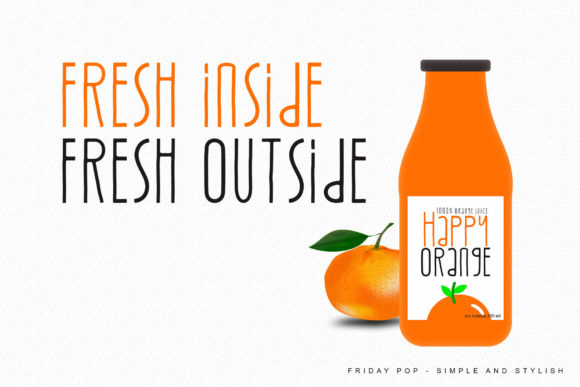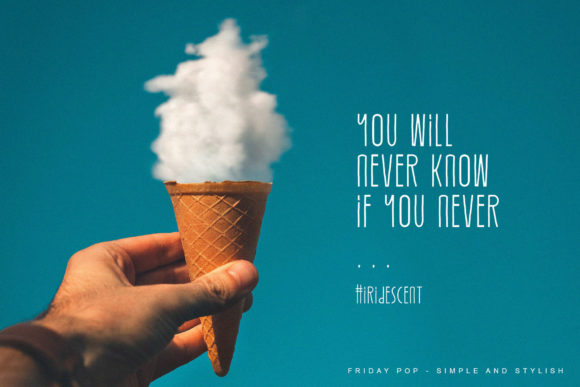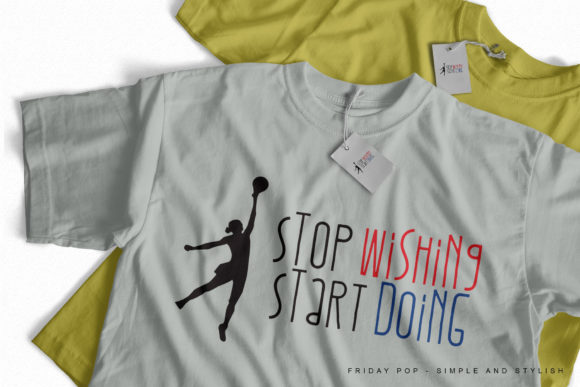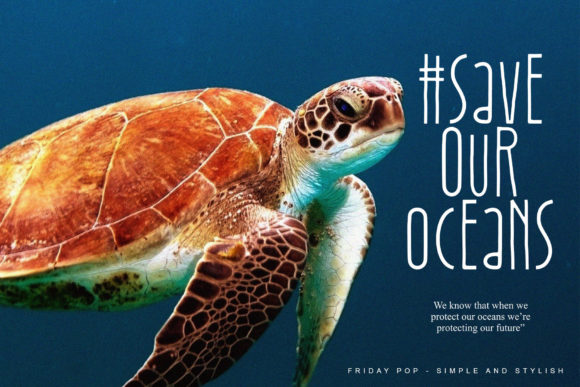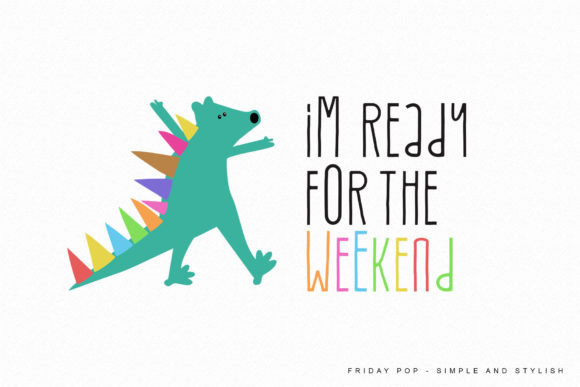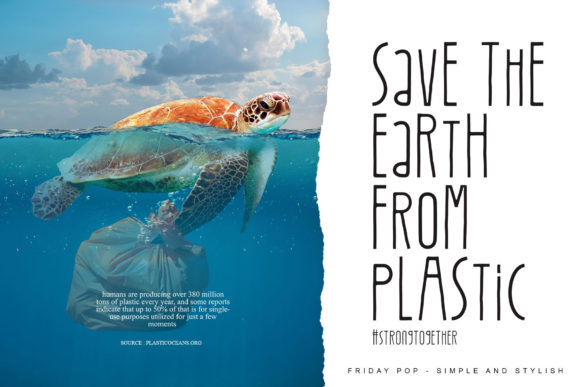
Introduction to Friday Pop Font
Have you ever been working on a creative project, pouring your heart and soul into every detail, only to feel like something’s missing? You’ve got the perfect concept, the ideal color palette, but the text just doesn’t seem to pop? That’s where the Friday Pop Font comes in – a free design resource that’s sure to elevate your high-quality project and make it stand out from the crowd.
As a designer, you know the importance of choosing the right font for your project. It’s not just about aesthetics; it’s about conveying your message and evoking the right emotions in your audience. The Friday Pop Font is a beautiful, thin lettered sans serif font that’s perfect for a wide range of creative projects, from branding and marketing materials to digital designs and more.
With its transparent background and simple design, the Friday Pop Font is a versatile and easy-to-use tool that’s sure to become a go-to resource for your design needs.
Key Features of Friday Pop Font
- High-quality font design perfect for creative projects, including advertisements, posters, and social media graphics.
- Transparent background, allowing for easy customization and layering.
- Includes a wide range of glyphs and characters, including Latin and Cyrillic scripts.
- Designed to be highly legible and visually appealing, making it perfect for use in digital and print media.
- Available in a single weight, but highly versatile and suitable for use in a variety of contexts.
Honest Review: Friday Pop Font
As a designer, I’m always on the lookout for high-quality design resources to elevate my creative projects. Recently, I stumbled upon the Friday Pop Font, and I must say it’s been a great addition to my toolkit. This font is perfect for anyone looking to add a playful and modern touch to their designs.
- ✨ Unique and modern design aesthetic that’s perfect for creative projects.
- ✨ Offers a transparent background, making it easy to use in various design scenarios.
- ⚠️ Limited character set, which may be a drawback for designers who need a wide range of characters.
- ⚠️ Not ideal for formal or professional projects, as it may come across as too casual.
Overall, I’m really impressed with the Friday Pop Font. It’s a great addition to any designer’s toolkit, and its modern design aesthetic makes it perfect for creative projects. While it may have some limitations, I believe it’s well worth the download, especially considering it’s free.
Friday Pop Font
The Friday Pop Font is a high-quality, free download design resource ideal for creative projects that require a modern and catchy feel. This font features a transparent background, making it easy to incorporate into various design elements.
Tips for Getting the Most Out of Friday Pop Font
To get the most out of the Friday Pop Font, try combining it with other design elements, such as icons and graphics, to create a visually appealing design. Experiment with different font sizes and colors to add depth and interest to your design.
The Friday Pop Font is ideal for a variety of creative projects, including social media graphics, blog posts, and advertising materials. It’s also a great choice for designing invitations, flyers, and other promotional materials.
Alternatives to Friday Pop Font
Comic Sans MS is a classic font that has been a staple in design for years. It’s perfect for creative projects that require a friendly and approachable tone. Use it for newsletters, social media graphics, or any other design resource that needs a casual feel.
Compared to Friday Pop Font, Comic Sans MS has a more traditional and familiar look, but lacks the modern and trendy vibe of Friday Pop Font.
Great Vibes is a high-quality font that’s perfect for creative projects that need a touch of elegance and sophistication. It’s a great option for designers who want a free download with a transparent background. Use it for wedding invitations, event graphics, or any other design project that requires a stylish touch.